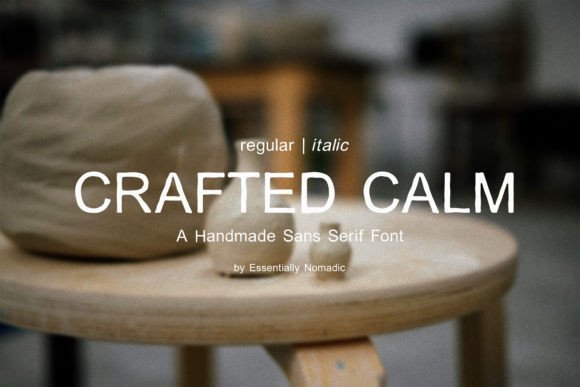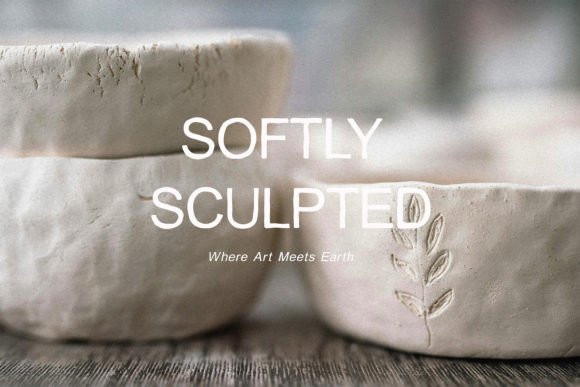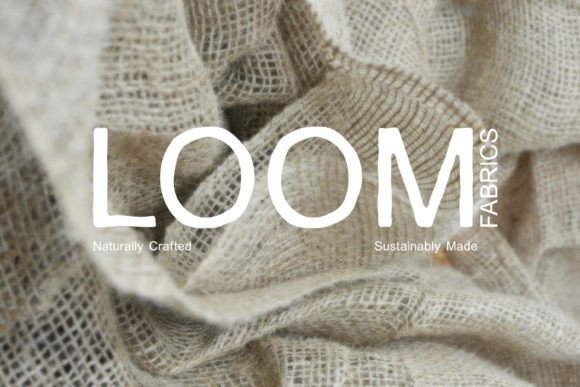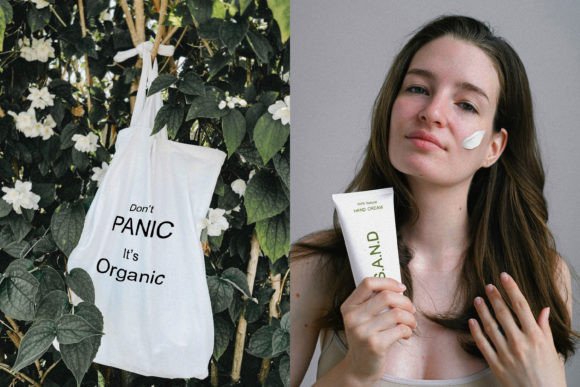
Created Calm Font
About the Created Calm Font
Elevate your designs with Created Calm Font, a font that combines sophistication with readability. Crafted Calm – A Sans Serif Typeface
Distinctive Hand-Drawn Quality: The font features irregular, organic edges that lend it a charming, artisanal look.
Playful and Approachable Character: Its uneven strokes and bumpy contours add a casual, friendly vibe.
Perfect for projects that want to evoke a hand-crafted, less polished aesthetic.
Modern and Minimalist Feel: it balances contemporary design with a touch of playful warmth.
Creative Versatility: Suitable for branding artisanal products, illustrations, or casual digital content, where a personal, inviting feel is needed.
Created Calm Font Usage Examples
Created Calm Font Example